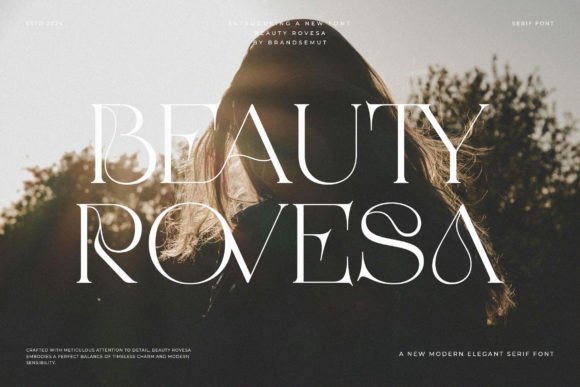
Introducing Beauty Rovesa Font: Elevate Your Designs with Elegance and Sophistication
In the world of typography, fonts play a crucial role in conveying the tone and personality of a brand or design. When it comes to creating visually stunning and high-end designs, the right font can make all the difference. This is where Beauty Rovesa Font comes in – an elegant, classy, and modern display serif font designed to elevate your headings, logos, branding, magazines, product packaging, and invitations.
What is Beauty Rovesa Font?
Beauty Rovesa is a sophisticated display serif font that boasts clean lines and smooth curves, giving any project an extra touch of class. Its modern design makes it perfect for a wide range of applications, from luxury branding to editorial design. Whether you’re looking to create a stunning magazine headline, a beautiful wedding invitation, or a high-end product label, Beauty Rovesa Font is the perfect choice.
Key Features of Beauty Rovesa Font
- Ligature and Alternates: Beauty Rovesa Font comes equipped with ligatures and many alternates, allowing you to add a personal touch to your designs and make them more unique.
- Clean Lines and Smooth Curves: The font’s sleek design ensures that your text is easy to read and visually appealing, making it perfect for headings and display text.
- Elegant and Classy: Beauty Rovesa Font exudes elegance and sophistication, making it ideal for high-end branding, luxury packaging, and editorial design.
- Modern Display Serif: The font’s modern design ensures that your text stands out and grabs attention, while its serif details add a touch of sophistication.
10 Creative Ways to Use Beauty Rovesa Font
- Magazine Headlines: Use Beauty Rovesa Font to create stunning magazine headlines that grab attention and draw readers in.
- Logo Design: Create a memorable and elegant logo for your brand using Beauty Rovesa Font.
- Wedding Invitations: Add a touch of sophistication to your wedding invitations with Beauty Rovesa Font.
- Product Packaging: Use Beauty Rovesa Font to create luxurious product labels and packaging that stand out on store shelves.
- Branding: Elevate your brand’s visual identity with Beauty Rovesa Font, perfect for creating high-end branding materials.
- Editorial Design: Use Beauty Rovesa Font to add a touch of elegance to your editorial designs, such as book covers, articles, and blog posts.
- Advertising: Create eye-catching advertisements with Beauty Rovesa Font that grab attention and drive results.
- Signage: Use Beauty Rovesa Font to create stunning signage that makes a lasting impression.
- Packaging Design: Add a touch of sophistication to your packaging design with Beauty Rovesa Font.
- Digital Media: Use Beauty Rovesa Font to create engaging digital media, such as social media graphics, videos, and presentations.
Tips and Tricks for Using Beauty Rovesa Font
- Experiment with Ligatures: Take advantage of Beauty Rovesa Font’s ligatures and alternates to add a personal touch to your designs.
- Play with Font Sizes: Use Beauty Rovesa Font in a range of font sizes to create visual hierarchy and emphasize key messages.
- Pair with Other Fonts: Experiment with pairing Beauty Rovesa Font with other fonts to create a unique and visually appealing typography combination.
- Use on Dark Backgrounds: Beauty Rovesa Font looks stunning on dark backgrounds, so don’t be afraid to experiment with different color schemes.
In conclusion, Beauty Rovesa Font is a stunning display serif font that can elevate your designs and add a touch of elegance and sophistication. With its clean lines, smooth curves, and ligatures, this font is perfect for a wide range of applications, from luxury branding to editorial design. Whether you’re a designer, marketer, or entrepreneur, Beauty Rovesa Font is a must-have in your typography arsenal.